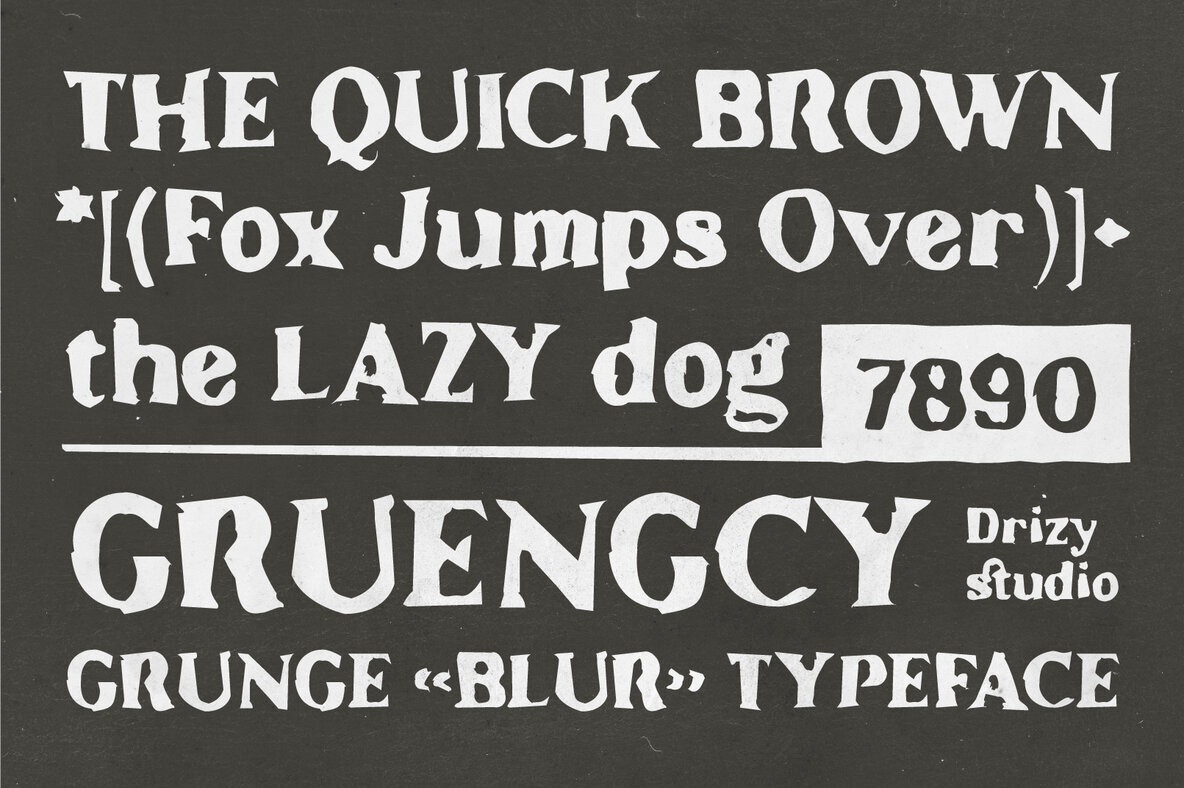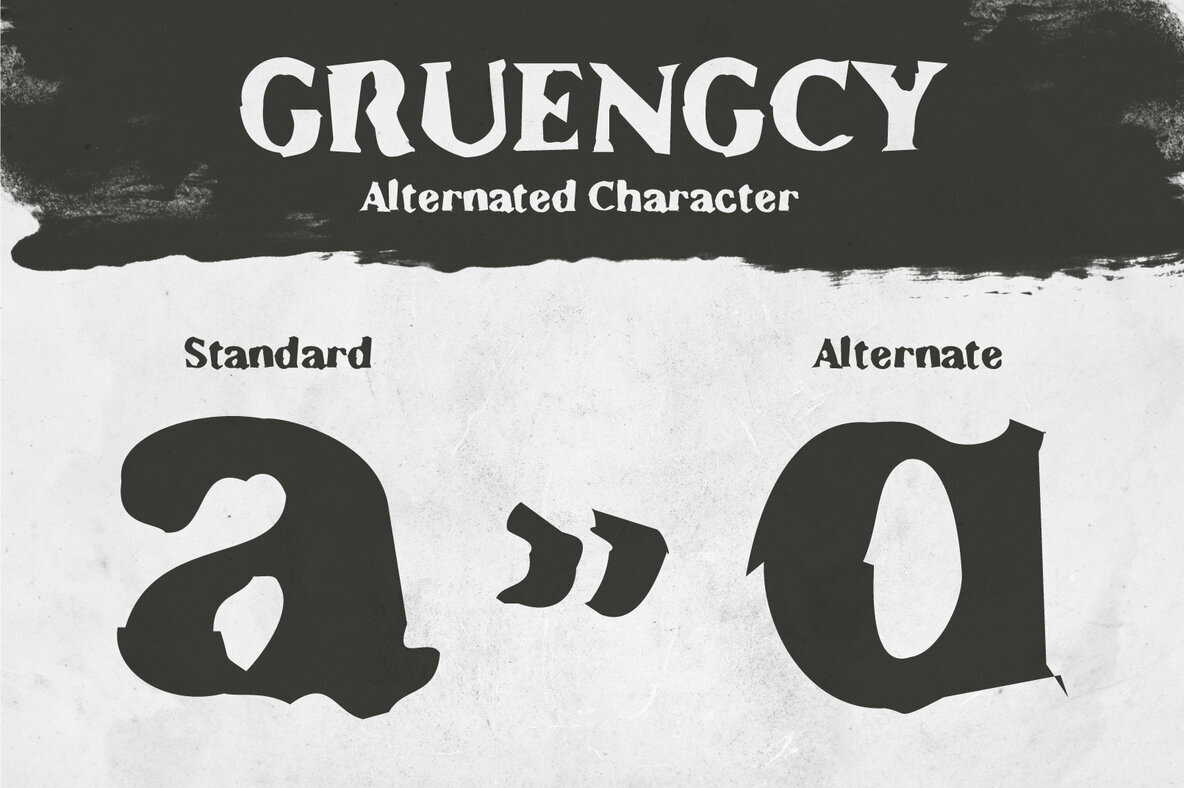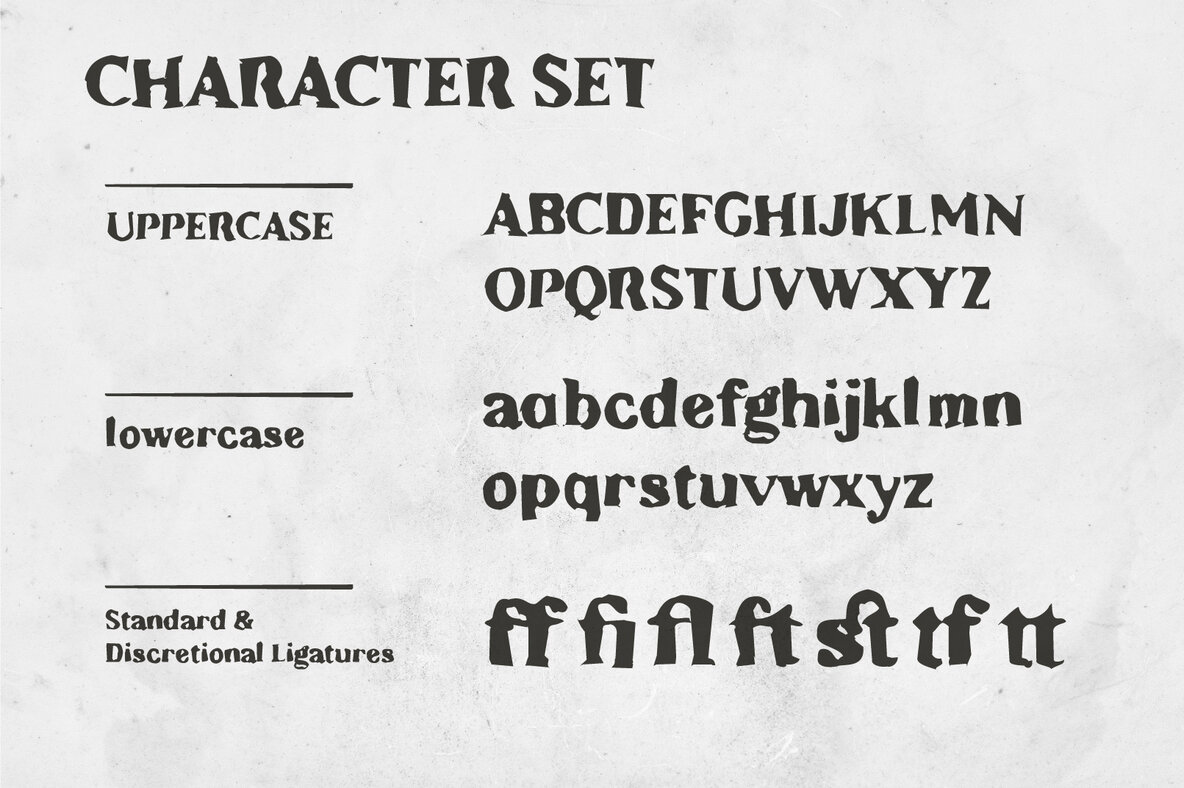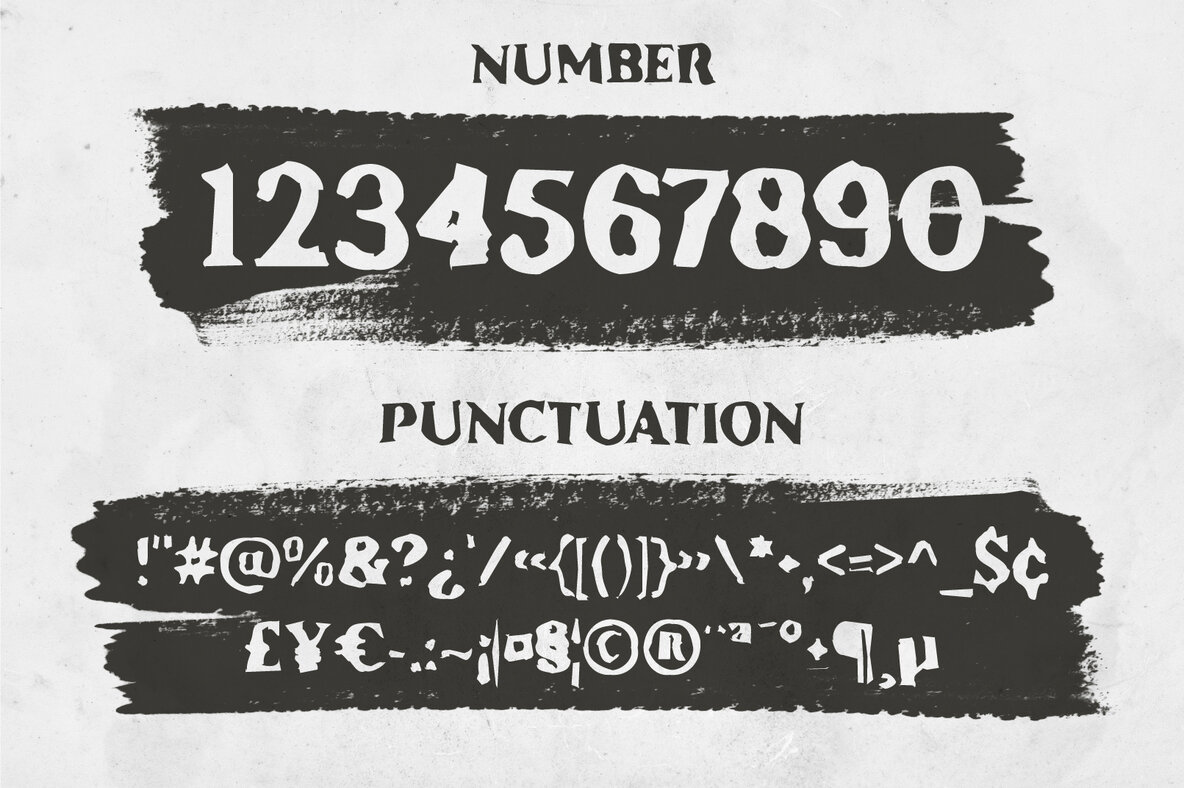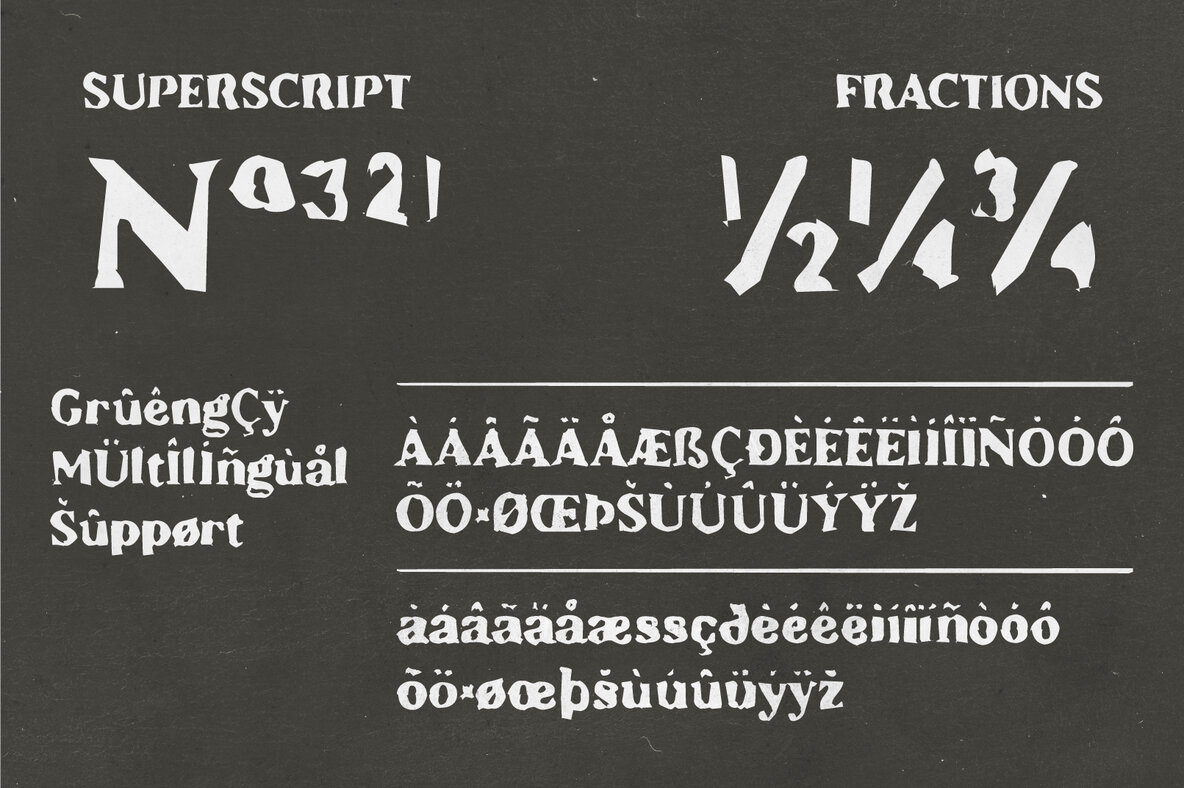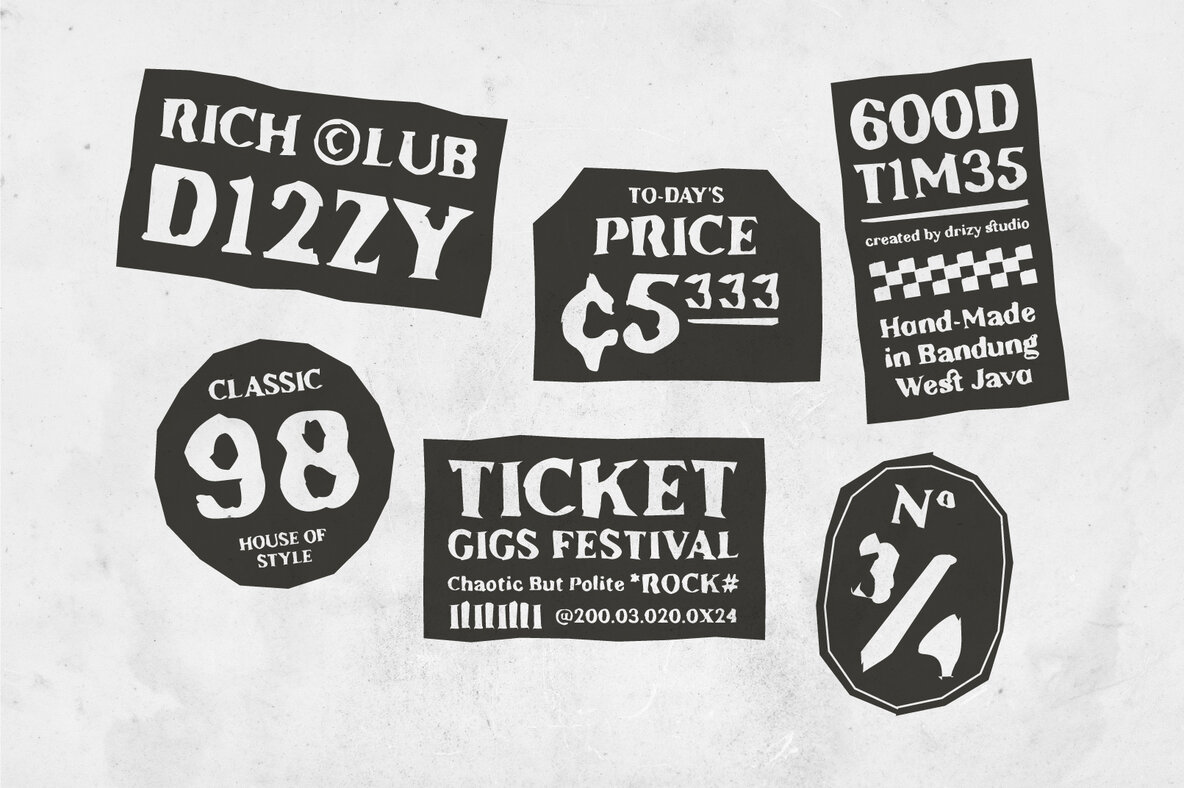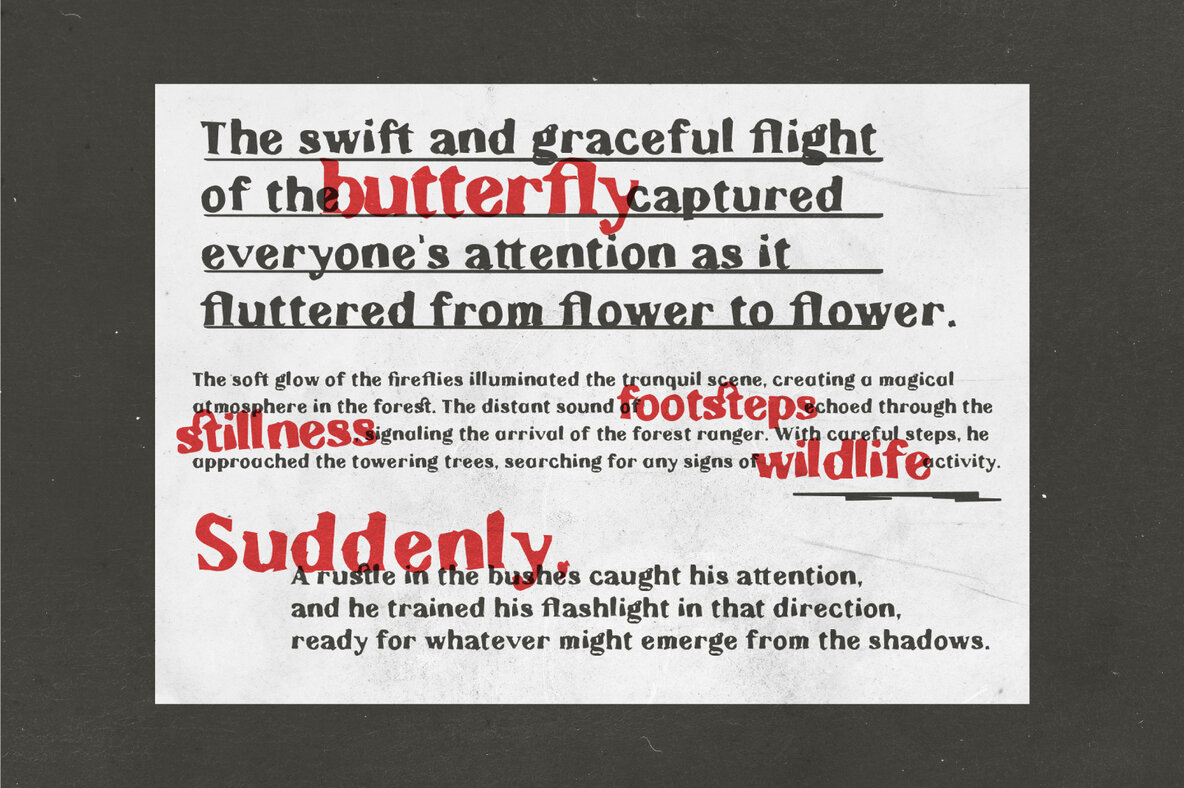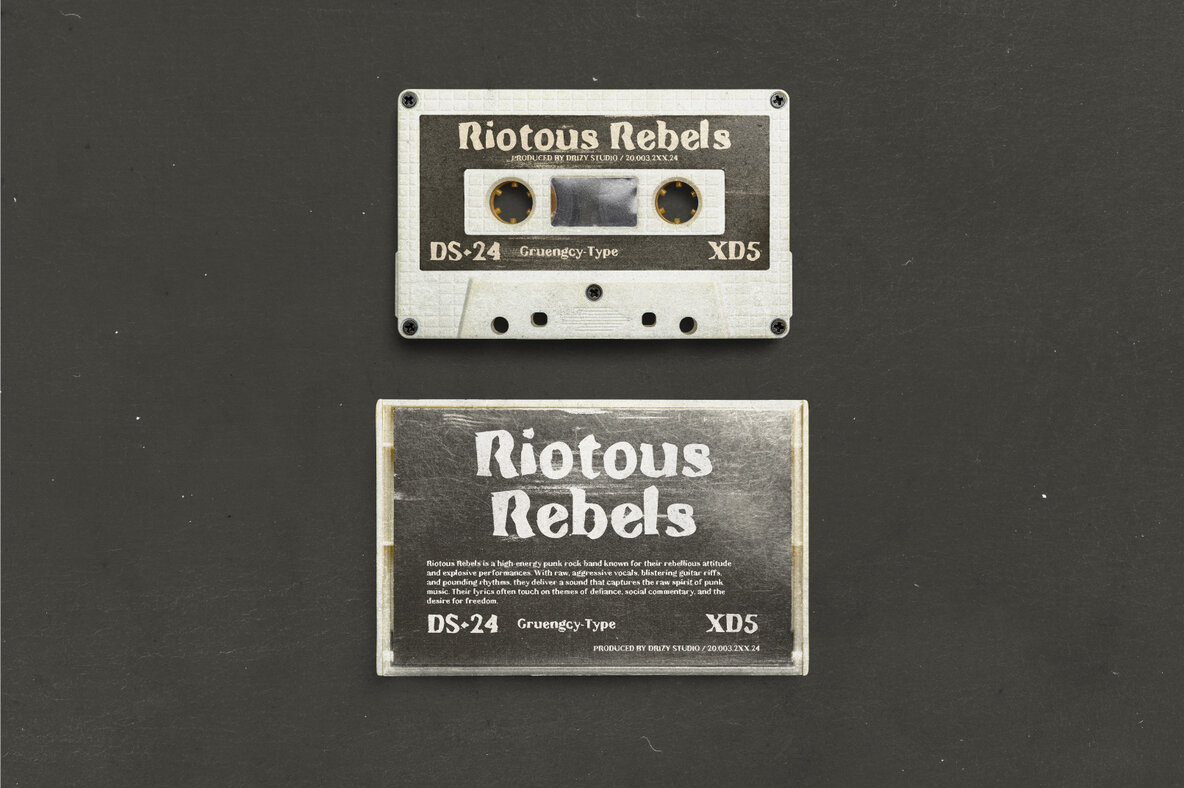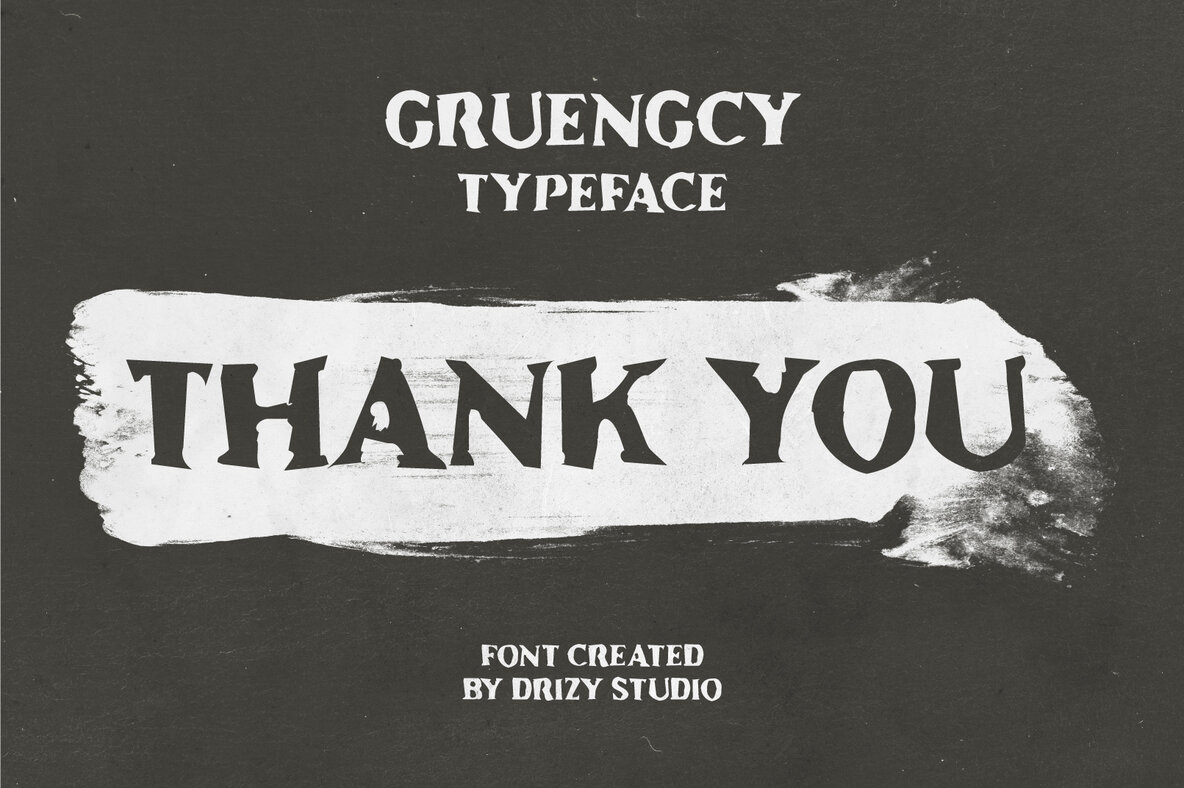
Gruengcy Font
Gruengcy Regular
Introducing Gruengcy – a unique blend of raw serifs, grunge texture, and the delicate intricacies of pointillism. This font embodies a rare artistic fusion, bringing together the ruggedness of grunge aesthetics with the refined details of pointillism, all while maintaining the classic structure of a display serif. Gruengcy is not just a font; it’s an art piece, designed to inject a bold, yet intricate personality into your projects. Gruengcy features: